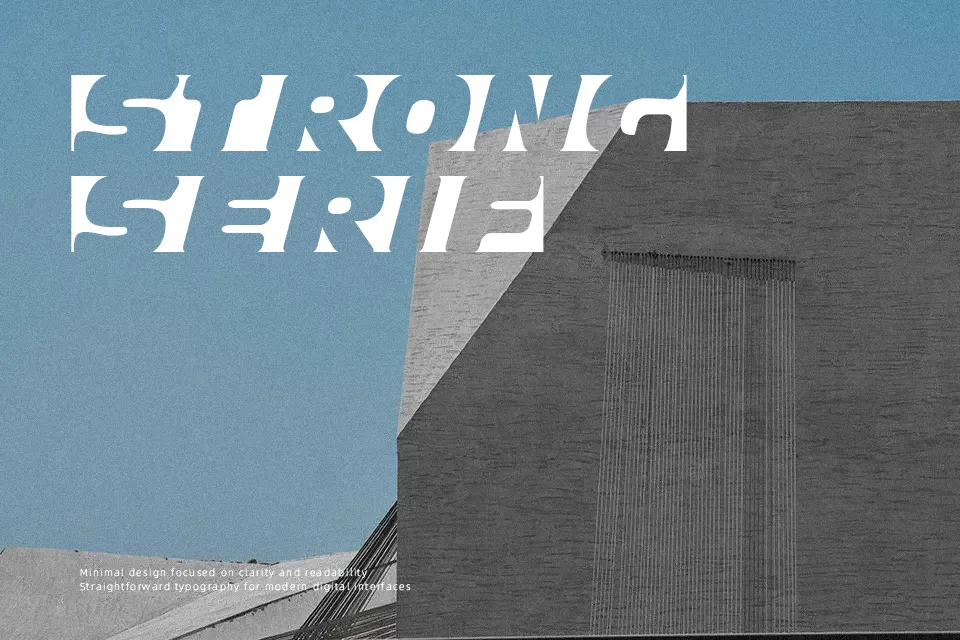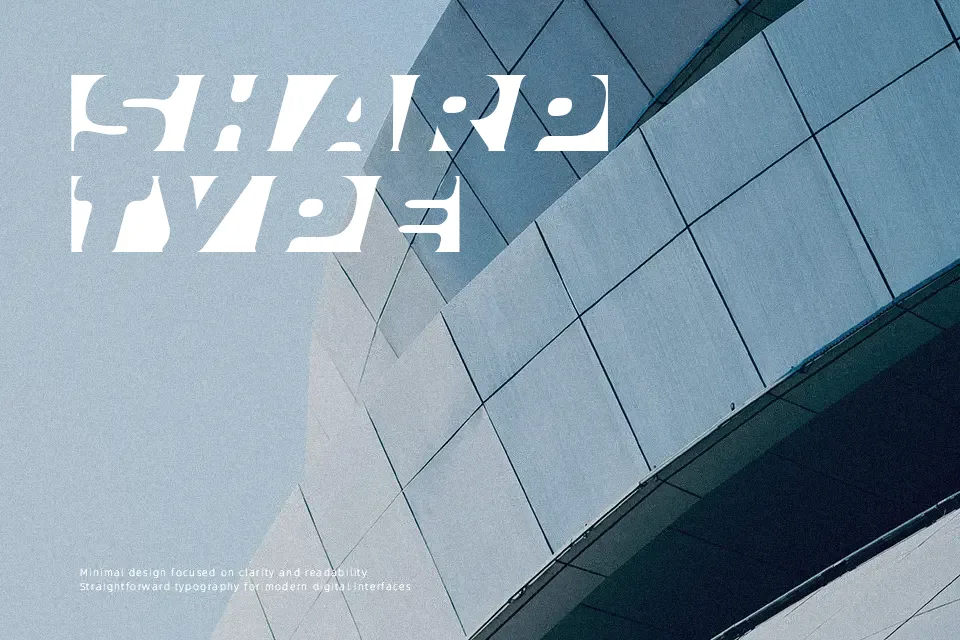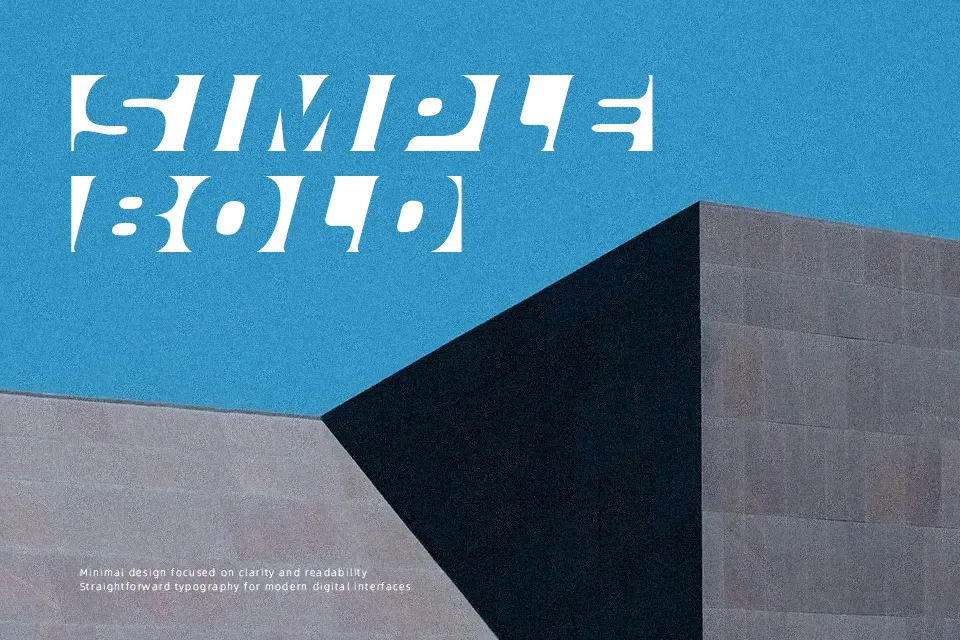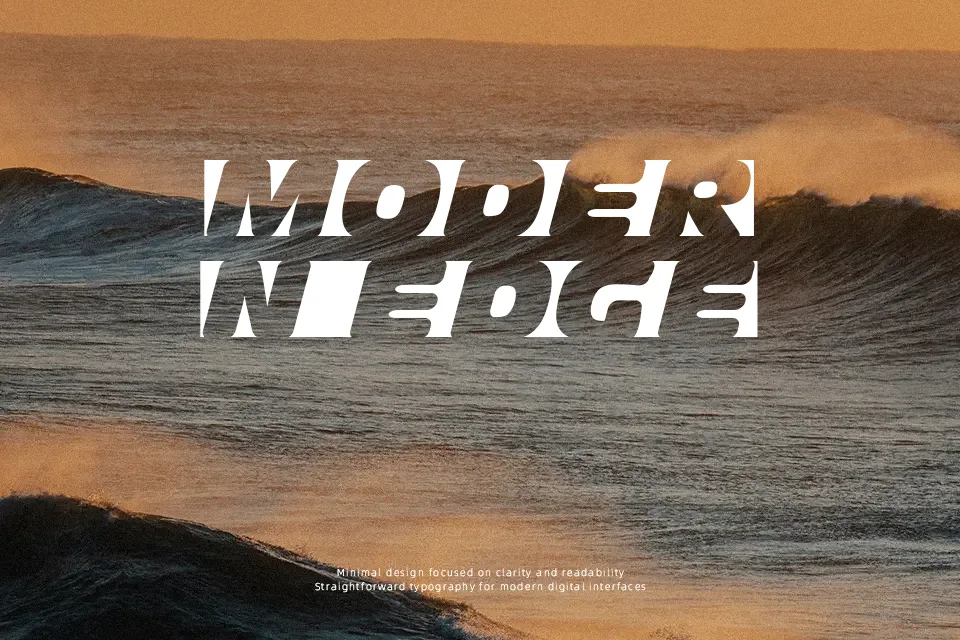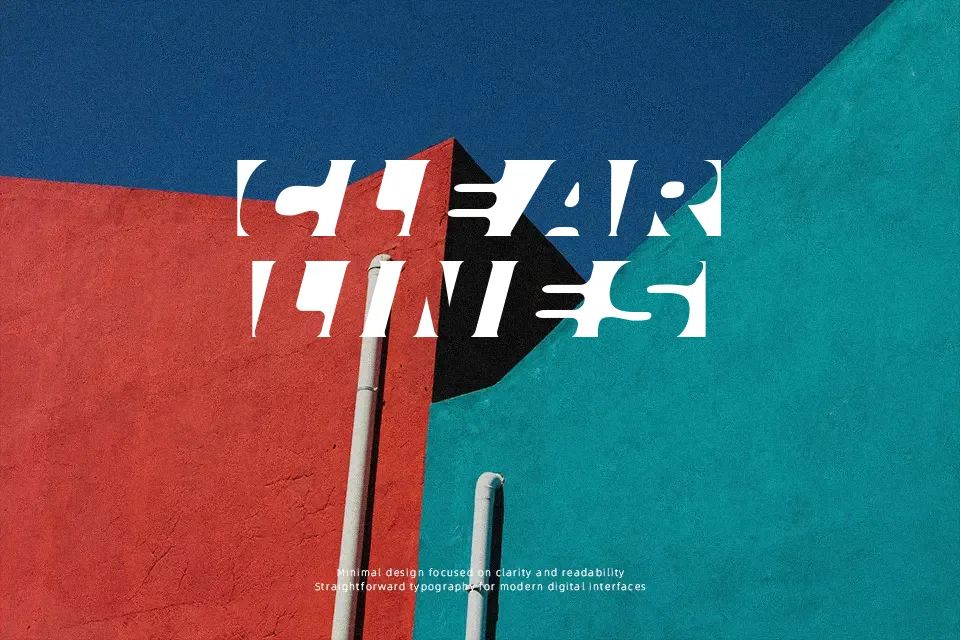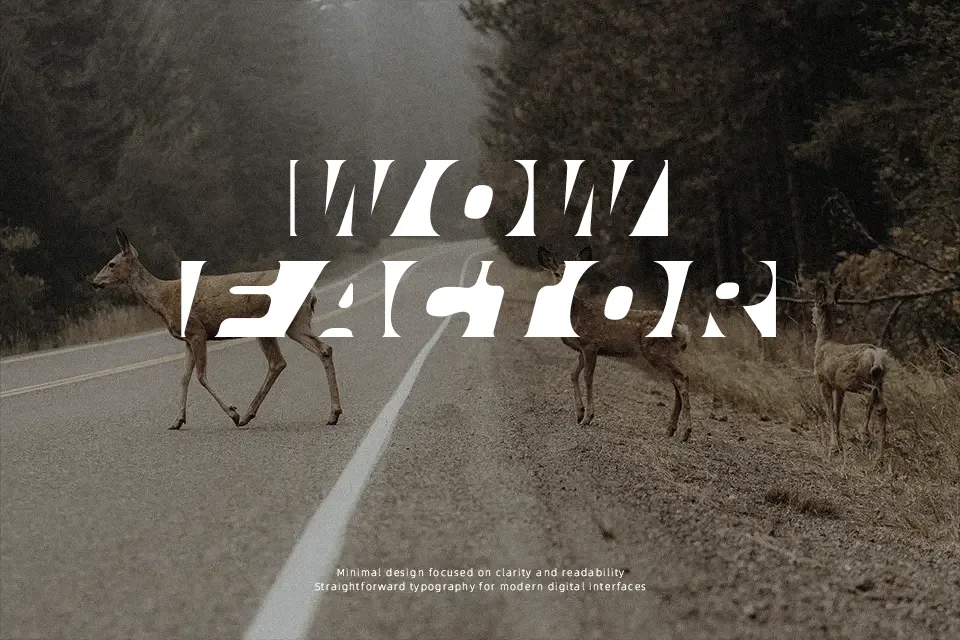
Obliquo Font
Designed by TracerTong Fontworks
Obliquo uses slanted geometric forms and a decorative, line-based construction that gives each character an unconventional silhouette. Strokes appear even in weight, while angled edges and open details create a crisp but visually busy rhythm. The capitals make the strongest impression at large sizes, and the spacing gives short words enough separation to remain recognizable. Numerals and punctuation follow the same stylized approach, supporting compact display compositions. The typeface is a practical choice for titles that need graphic presence rather than neutral typography. At small sizes, its fragmented details and oblique forms can slow recognition.
Best For: poster titles,album artwork,logo concepts,packaging headlines
Perfect for headline, logo, and packaging, with a creative and decorative style.